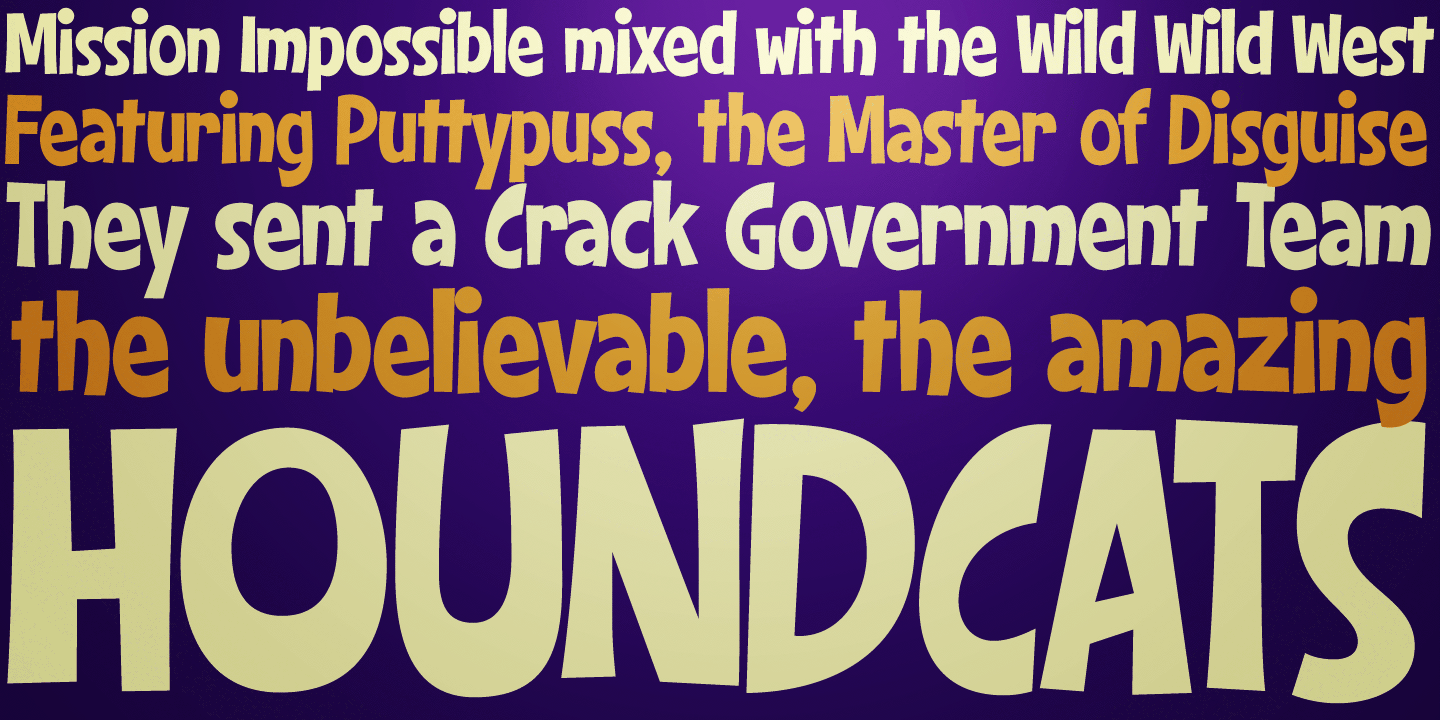
Houndcats PB Font demonstrates exceptional versatility across numerous design applications including pet care branding, veterinary clinic marketing, animal shelter communications, pet product packaging, children's book illustrations, pet photography businesses, animal-themed educational materials, and family-friendly entertainment promotions. Its playful character makes it particularly effective for projects requiring approachable warmth while maintaining professional credibility, ensuring your designs convey friendliness and trustworthiness across both digital platforms and colorful print materials.
What makes Houndcats PB Font truly exciting is its innovative approach to typography that perfectly captures the lovable spirit of pets through carefully designed letterforms that feel both playful and professional. The font features meticulously crafted characters that incorporate subtle pet-inspired elements and friendly proportions that enhance emotional connection while maintaining excellent readability and business application. Its distinctive character construction combines whimsical personality with practical functionality, creating text that feels both endearing and reliable for pet-related businesses. The font's optimized spacing and harmonious character relationships ensure superior performance across various pet industry applications while preserving the characteristic charm that defines its animal-loving personality.
Houndcats PB Font offers a comprehensive type family designed to support diverse pet-oriented design requirements. The family typically includes light, regular, medium, and bold weights, along with corresponding italic variations that provide complete flexibility for friendly typography compositions. Many versions feature extended character sets with pet symbols, animal ornaments, and specialized glyphs that enhance authentic pet industry aesthetic applications.
The Houndcats PB Font Free Download represents outstanding value for designers working on pet-focused and family-oriented projects across multiple sectors. Whether developing veterinary practice branding, creating pet product communications, designing animal shelter materials, or producing pet education content, this font delivers consistent warmth and memorable friendly appeal. Its pet-loving characteristics make it particularly effective for industries including veterinary services, pet retail, animal care, and family entertainment sectors seeking to communicate genuine care and trustworthy service.
For maximum effectiveness, Houndcats PB Font combines beautifully with warm, cheerful color palettes and pet-friendly design elements that reinforce its caring message. Its friendly presence excels in headline applications while maintaining excellent performance in pet care communication contexts. The font's playful sophistication and animal-loving appeal make it an essential tool for creating trustworthy communications that resonate with pet owners and animal lovers seeking reliable, caring services.